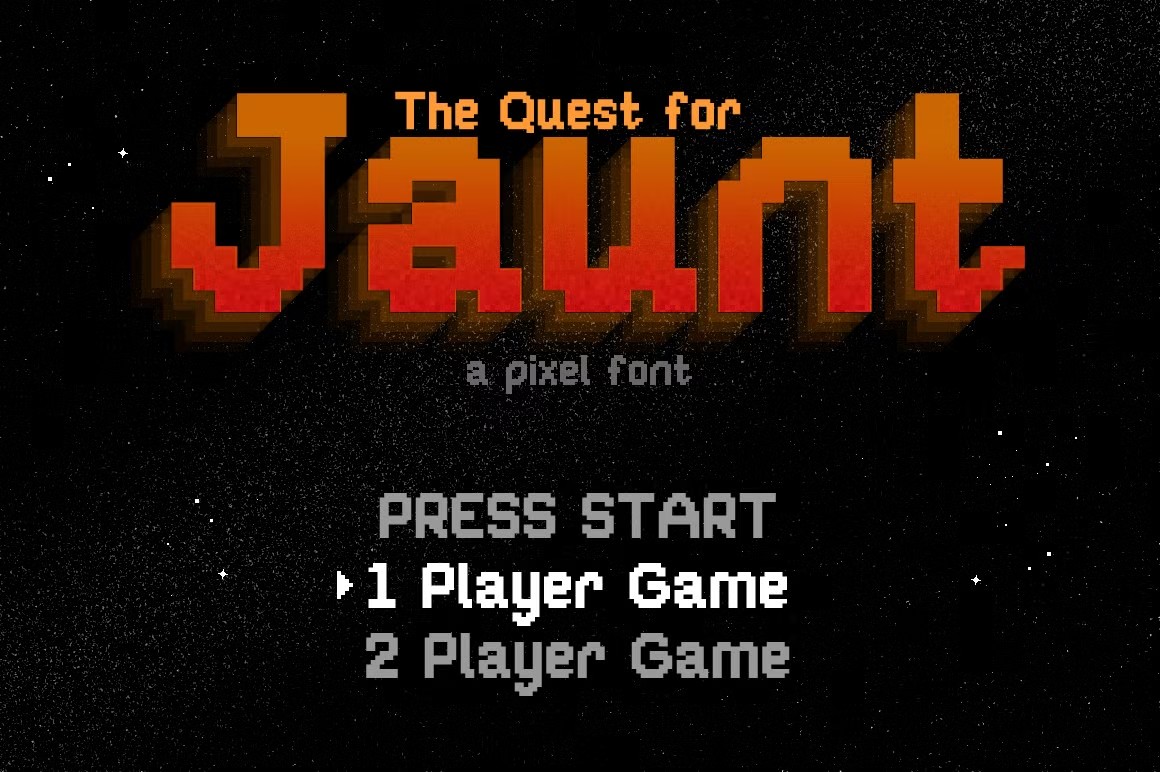
Video Game Pixel Fonts
Pixel fonts with a little more weight that would work perfectly for your next retro game project.
Spryte
Spryte is a nostalgic typeface that brings back the retro vibes of 80s and early 90s gaming, now packaged in a modern design. Based on an 8x8 pixel grid, Spryte captures the essence of classic arcade games, with all the charm of pixels and bold typography. Whether you're using it in all caps or sentence case, Spryte is ready to take you back to those nostalgic days of pixelated gaming fun. With a range of features like stylistic alternates and arrow sets, this font is perfect for retro-themed designs, games, and more.
Analog Pixel
Get ready to experience the nostalgia of analog times with Analog Pixel, a retro-style pixel font that brings back the memories of classic video games and vintage computer displays. This blocky, digital-looking font mimics the pixel-perfect typography of yesteryear, giving text a unique, video game-like quality that's sure to transport you back in time. Whether you're designing for a nostalgic-themed website, an old-school video game, or a retro-inspired poster, Analog Pixel is the perfect choice to evoke a sense of nostalgia and playfulness.
Plump Pixel
Welcome to the delightful world of Plump Pixel, where an explosion of joy and playfulness bursts forth with every character. This charming font exudes an irresistible charm, meticulously crafted to embody a chubby and adorable appeal that instantly tugs at your heartstrings. As you type, your words come alive with vibrant energy, bouncing and dancing across the screen like classic arcade games. The result is an immersive and engaging experience that's equal parts nostalgic and contemporary. With Plump Pixel, retro meets modern in a truly extraordinary font that elevates any gaming or design project. Let your text embark on a captivating odyssey through this whimsical realm!
Waves CPC
Waves CPC is a pixel typeface family that's still evolving. It all started with a desire to create a simplified blackletter typeface, but then my experience in pixel art inspired me to incorporate wave-like elements into the design. The name Waves CPC comes from the heart of 8bit music (chiptune), waveforms, and the giant waves that shape our oceans. This family currently includes three members: Blackletter, Chunky, and Tiny & Tiny Slab. Each member offers a range of styles, including base, shadow, and inline layers, uppercase and lowercase characters, numbers, symbols, and punctuation marks, as well as extended language support. Whether you're looking to create zine mastheads, power metal band logos, digital tombstones, indie RPGs, or retro gaming show title screens, Waves CPC is the perfect choice. As a bonus, all future font styles added to the family will be available to early purchasers at no additional cost.
Blackbit Pixelated Blackletter Font
Get ready to transport yourself back to the golden era of retro games with Blackbit, a pixelated blackletter font that perfectly captures the essence of 8-bit and Sega game visuals. This unique font combines the charm of pixel artistry with modern readability, making it perfect for elevating your creations. With support for multiple languages, numbers, and symbols, you can unleash your creativity and bring back the nostalgia in your designs. Whether you're working on a gaming project or simply want to add a retro touch, Blackbit is the ultimate font to get you started.
Magic Quest - 8-Bit Blackletter
Get ready to level up your typography game with Magic Quest - 8-Bit Blackletter! This retro-futuristic font set is a nostalgic nod to classic PC games of yesteryear. With three combinable styles - Solid, Squares, and Dots - each carefully crafted and spaced for maximum visual impact. Give your work that magical cool factor with this stylish and minimalist blackletter font. Perfect for designers seeking an otherworldly aesthetic, Magic Quest is a unique addition to any project. Includes upper case, lower case, numbers, punctuation, alternate Z, Western European characters, and more!
Game Paused - Pixel Game Family
Get ready to level up your design game with the "GAME PAUSED" font collection! This retro-inspired font is a playful tribute to the iconic pixel art style of the 00s. With six unique styles - Regular, Slant, Outline, Extrude, Outline Slant, and Extrude Slant - GAME PAUSED is perfect for any project that needs a dash of nostalgic charm. Whether you're designing for pixel games, cartoons, or simply want to add some old-school flair to your work, this font has got you covered. Available in TTF, OTF, WOFF, and WOFF2 formats, it's fully accessible without additional design software. So grab your controller and get creative with GAME PAUSED!
Bitcraft - Computer Pixel Font
Bitcraft is an 8-bit pixel font that takes you back to the nostalgia-filled days of the 1980s. This all-caps font is designed with a retro aesthetic, reminiscent of classic video games and computer interfaces from that era. With its vintage charm, Bitcraft is perfect for designers looking to add a touch of old-school flair to their work. Suitable for a wide range of design projects, including illustrations, posters, logos, apparel, and web design, this font is sure to bring a blast from the past to any project it's used in. Its versatility and nostalgic appeal make it an excellent choice for designers looking to evoke a retro vibe.
Jaunt: 8-bit pixel font
Step into the retro gaming era with Jaunt, an 8-bit pixel font that's a nod to the good old days when games were simple yet oh-so-satisfying. Remember when playing video games left your palms sweaty and bruised, and Nintendo thumb was a real concern? Yeah, those were the days! With Jaunt, you'll be transported back in time to an era where fonts were straightforward, sans fancy frills. But don't worry, this font still packs a punch with its spunky personality. Perfect for gamers and non-gamers alike, Jaunt is easy on the eyes and ready to join your next adventure. Your purchase includes all the necessary files to use Jaunt as a web font.
SuperDario Pixel Game Font
SuperDario is a playful and carefully crafted pixel font designed for use in games, web design, branding, and social media. This versatile font features Extended Latin and Cyrillic letters, making it suitable for multilingual applications. With support for a wide range of languages, including Afrikaans to Zulu, SuperDario is perfect for international projects. The font also comes with webfont formats such as TTF, OTF, WOFF, and WOFF2, allowing for easy integration into your digital projects. As an added bonus, SuperDario includes free support, updates, and requests, ensuring that you'll always have access to the latest features and improvements.